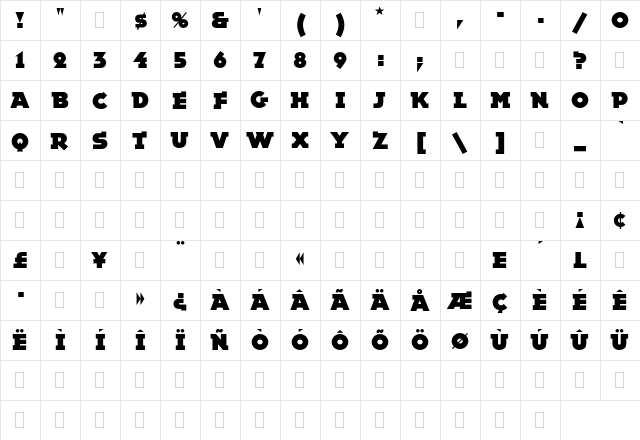
Epokha Plain
Design Context for Epokha Typeface
Epokha is a composed and adaptable typeface that performs quietly and consistently across a wide range of design contexts.